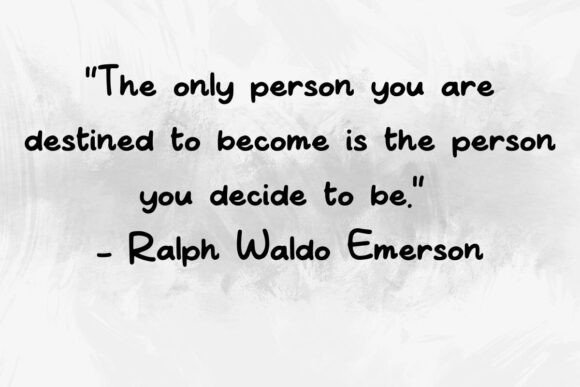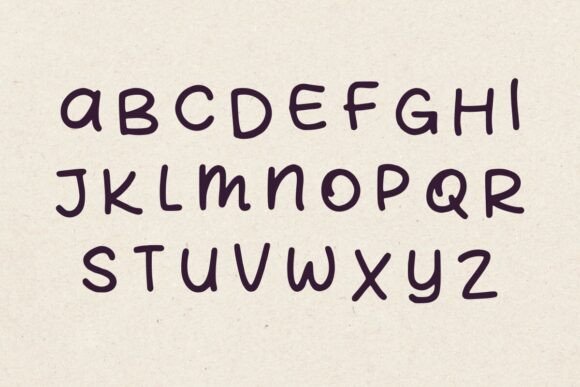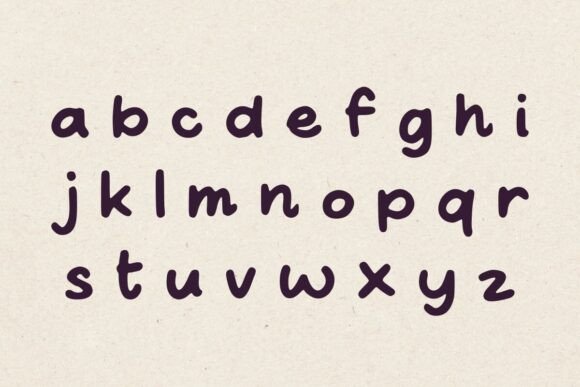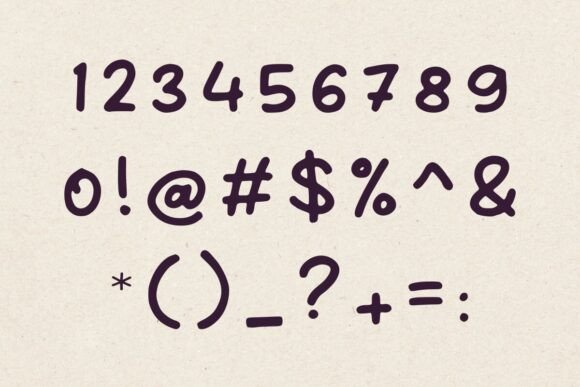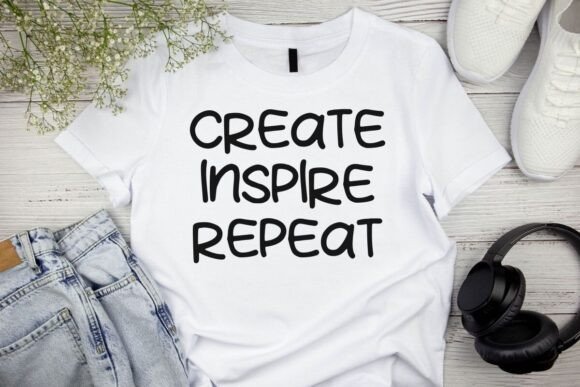
Introduction to Loopy Scribble Font
Remember the last time you were brainstorming ideas for a creative project and the perfect font just seemed to be missing? You know, that elusive combination of style and personality that would bring your design to life. For many designers, that perfect font is the Loopy Scribble Font. Its unique blend of casual charm and playful, sketch-like feel makes it a game-changer for any project that needs a friendly and informal touch.
As a valuable design resource, the Loopy Scribble Font offers a high-quality, free download that can be used with a transparent background, giving designers the flexibility to incorporate it into a wide range of creative projects. From children’s books to social media graphics, this versatile font is sure to add a touch of whimsy and authenticity to any design.
Whether you’re a seasoned designer or just starting out, the Loopy Scribble Font is a must-have in your design arsenal. Its natural, handwritten style makes it perfect for projects that require a personal and approachable touch, and its free download makes it an accessible resource for designers of all levels.
Key Features of Loopy Scribble Font
- High-quality, free download design resource ideal for creative projects, including invitations, posters, and greeting cards.
- Unique, hand-drawn style with a mix of cursive and script elements, perfect for adding a personal touch to your designs.
- Transparent background option allows for seamless integration with any background image or color.
- Designed at 300 DPI resolution, suitable for high-quality printing and digital displays.
- Perfect for designers and artists looking for a unique, creative font to enhance their designs and stand out from the crowd.
Honest Review: Loopy Scribble Font
As a designer, I’m always on the lookout for new and unique design resources to elevate my creative projects. The Loopy Scribble Font is one such resource that caught my eye, and I’m excited to share my honest review with you.
What works well: ✨ The Loopy Scribble Font is a high-quality, free download that’s perfect for adding a playful touch to your designs. The font’s loopy, scribbly lines make it ideal for creating a whimsical atmosphere, and its transparent background allows for seamless integration into your design.
- Great for creating a fun and playful atmosphere in your designs
- Perfect for adding a personal touch to your creative projects
- High-quality, free download
However, there are some limitations to consider: ⚠️ The font may not be suitable for formal or professional designs, and its playful nature may not be to everyone’s taste. Additionally, the font’s lines can be quite thick, which may not be ideal for designs that require a more delicate touch.
Overall, I’m impressed with the Loopy Scribble Font, and I would definitely recommend it to designers looking to add a bit of whimsy to their designs. Just be sure to use it in the right context, and you’ll be sure to create some amazing designs.
How to Use Loopy Scribble Font
The Loopy Scribble Font is a unique and creative design resource that can add a personal touch to your projects. With its high-quality, free download, this font is perfect for designers and artists looking for a distinctive element to enhance their work.
Using Loopy Scribble Font in Adobe Photoshop/Illustrator
In Adobe Photoshop or Illustrator, you can use the Loopy Scribble Font as a layer or text element. To achieve a high-quality result, make sure to use a high-resolution image and adjust the font size and spacing to suit your design. The free download feature of this font makes it a great resource for creative projects.
Using Loopy Scribble Font in PowerPoint/Word
In PowerPoint or Word, you can use the Loopy Scribble Font as a text element or title. To get the most out of this font, experiment with different font sizes, colors, and spacing to create a visually appealing design. The transparent background feature of this font makes it easy to overlay on top of other design elements.
Tips for Getting the Most Out of Loopy Scribble Font
To get the most out of the Loopy Scribble Font, experiment with different font sizes, colors, and spacing. You can also combine this font with other design elements, such as images or shapes, to create a unique and eye-catching design. Additionally, make sure to adjust the font size and spacing to suit your design and ensure that it is legible.